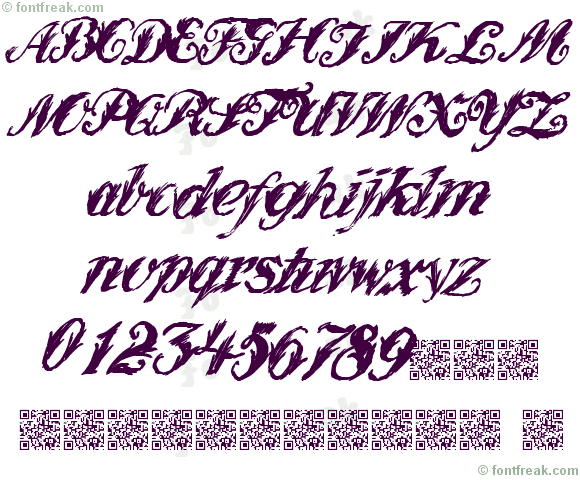
WonderInk
About WonderInk
WonderInk by XEROGRAPHER FONTS is a captivating display font that embodies a unique blend of artistic flair and readability. This font, released in 2015, showcases a handwritten style that captures the essence of fluid creativity. The strokes exhibit a moderate contrast, giving it a dynamic presence while maintaining clarity. Its slightly irregular spacing contributes to a relaxed, organic feel, making it suitable for a variety of creative projects.
WonderInk is perfect for wedding invitations, where its elegant yet approachable design can set a romantic tone. It also shines in the realm of artistic branding, ideal for small businesses such as cafes or boutiques looking to convey a charming, personal touch. Additionally, the font can elevate movie posters, lending a sense of intrigue and excitement. Restaurant menus will benefit from its distinct style, helping to create an inviting atmosphere for diners. Graphic designers and content creators will find this font invaluable for projects that require a touch of artistry without sacrificing legibility.
The target audience for WonderInk includes graphic designers, small business owners, and content creators who seek to express individuality and creativity in their work. The font's freeware license makes it an accessible choice for those on a budget, encouraging widespread use in various applications.
What truly sets the WonderInk font apart is its ability to evoke emotion while remaining functional. Its artistic strokes and handwritten essence make it a versatile choice for anyone looking to add a personal touch to their designs. For those interested in incorporating this unique typeface into their projects, the WonderInk font free download is readily available, inviting exploration and creativity.